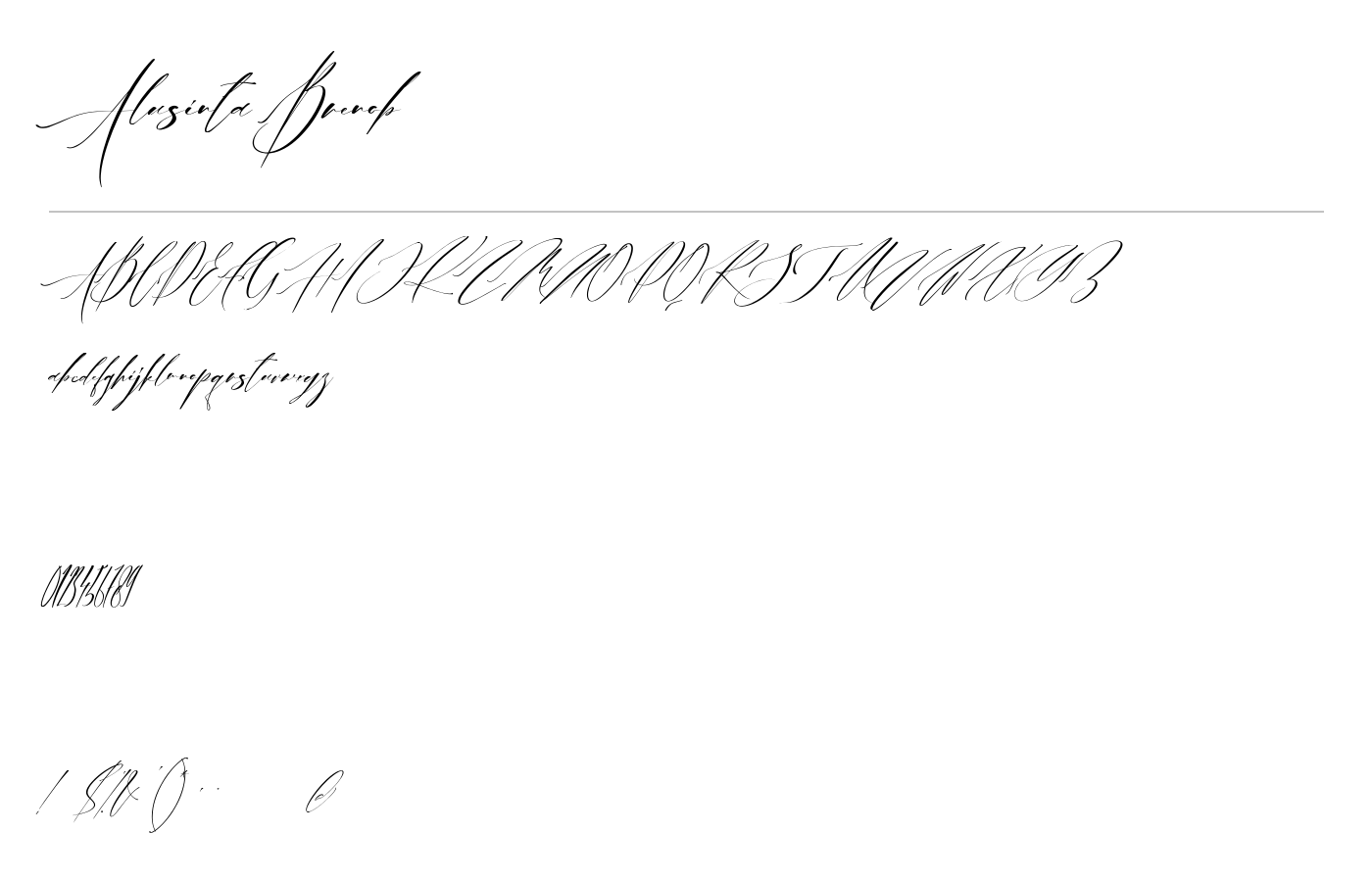
Alusinta Brenob is an elegant and refined script font featuring delicate, flowing strokes with high contrast between thin and thick lines. Its tall, slender letterforms and graceful flourishes give it a sophisticated, handwritten feel perfect for luxury branding, wedding invitations, and editorial headlines. This font works best where a stylish, artistic touch is desired to evoke romance and exclusivity.
Alusinta Brenob Font